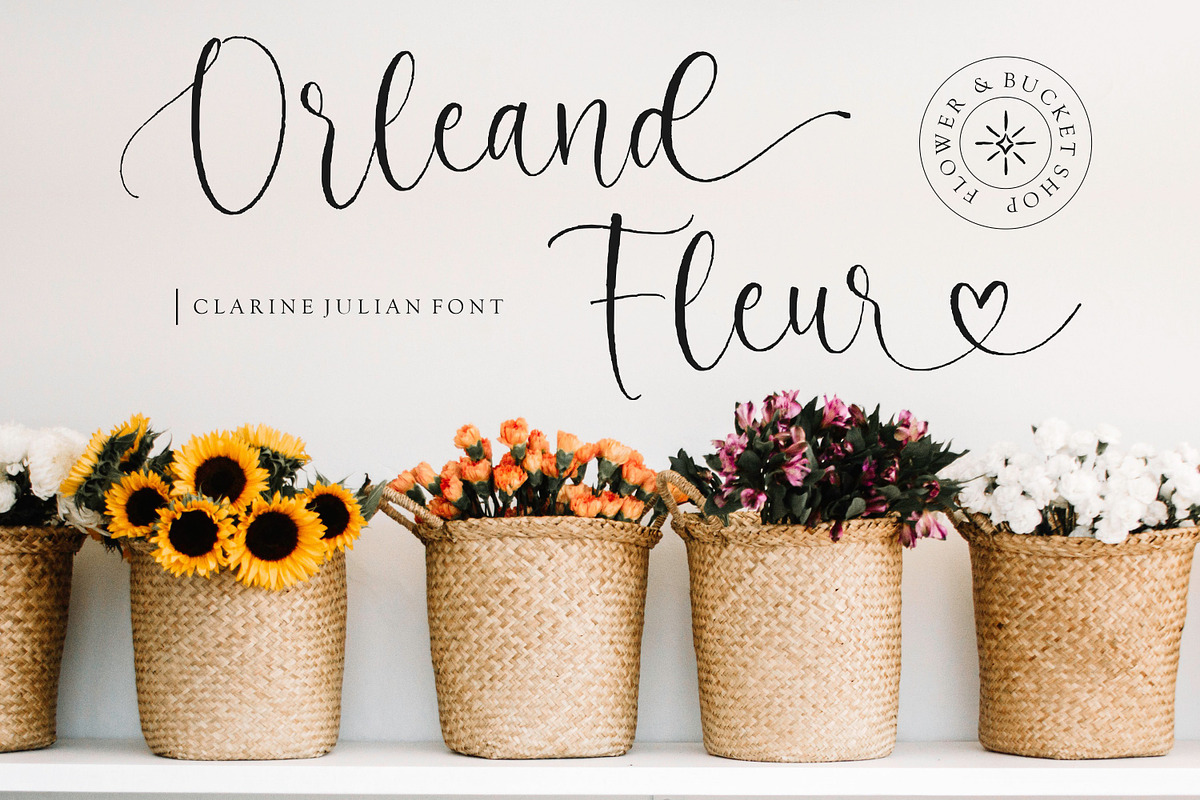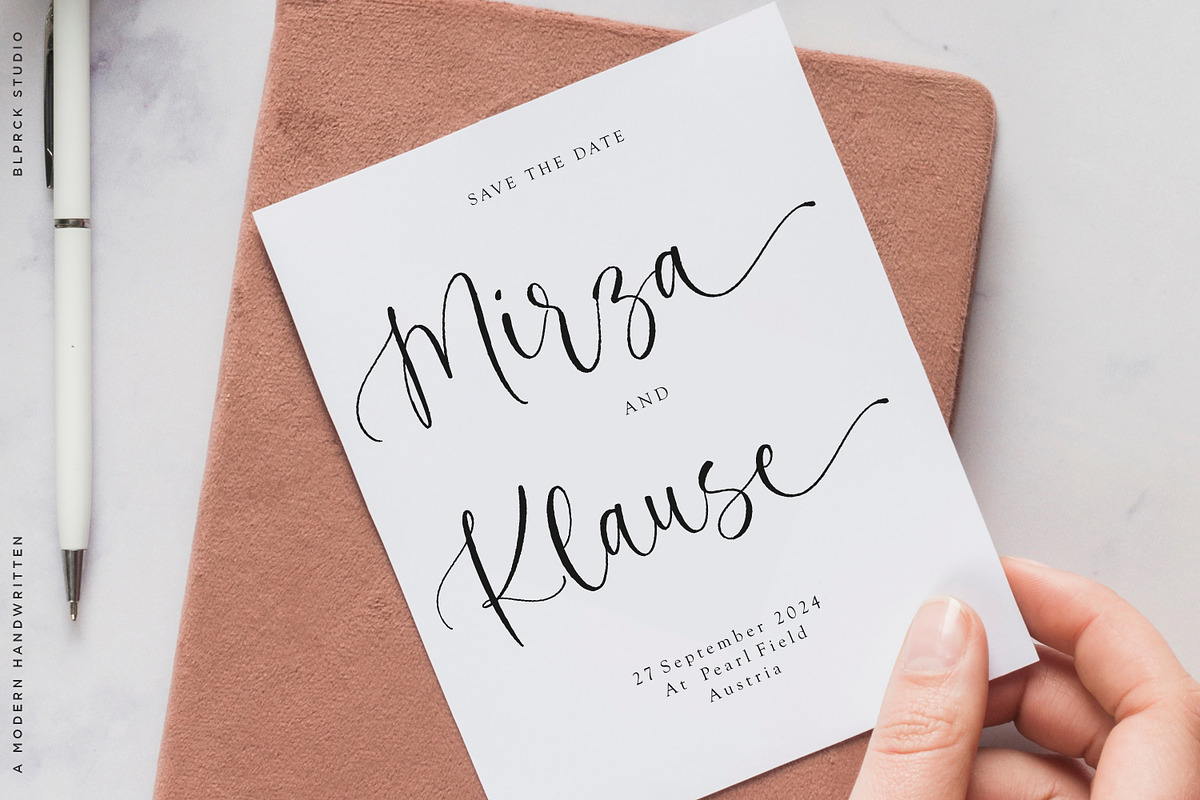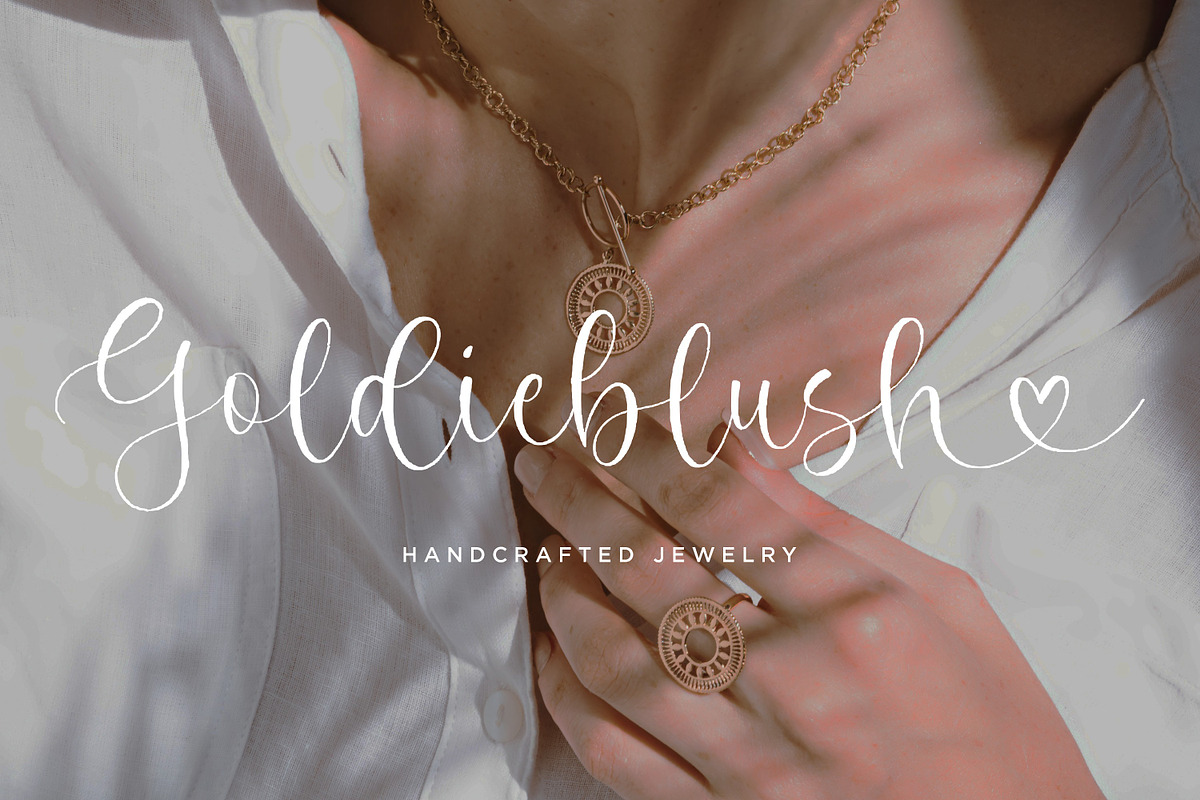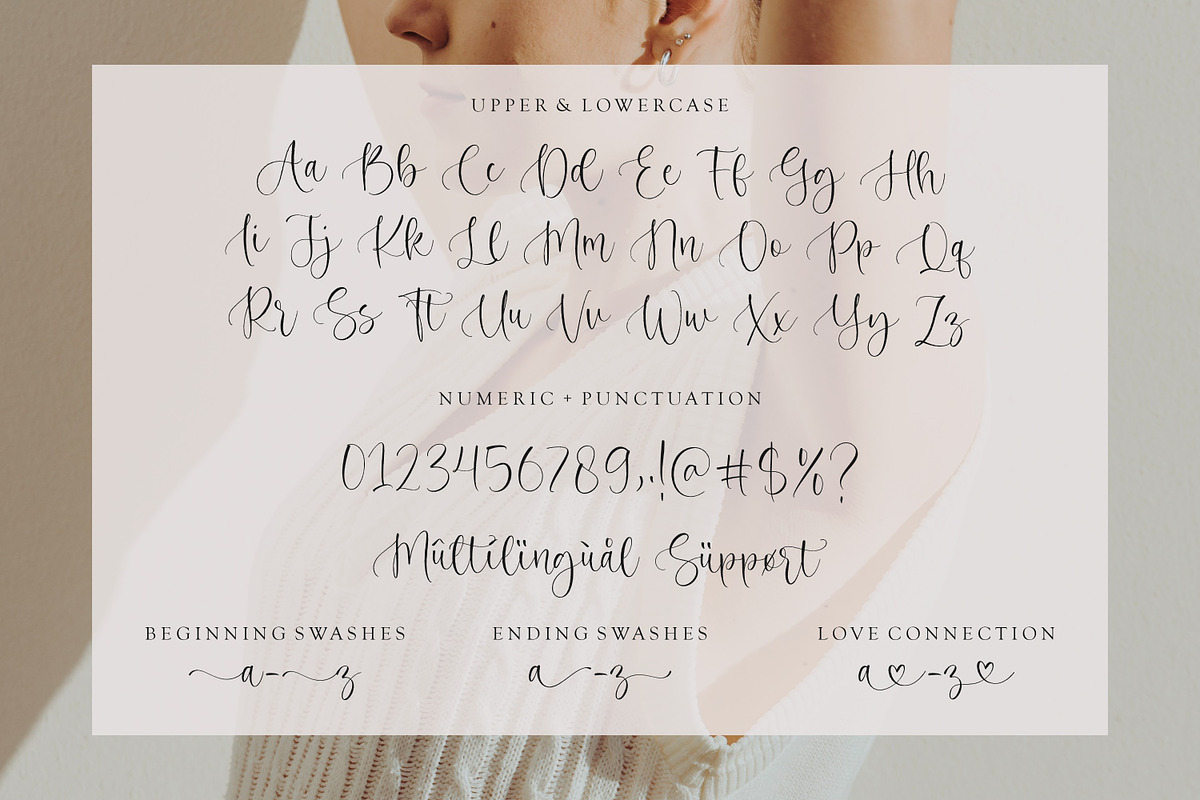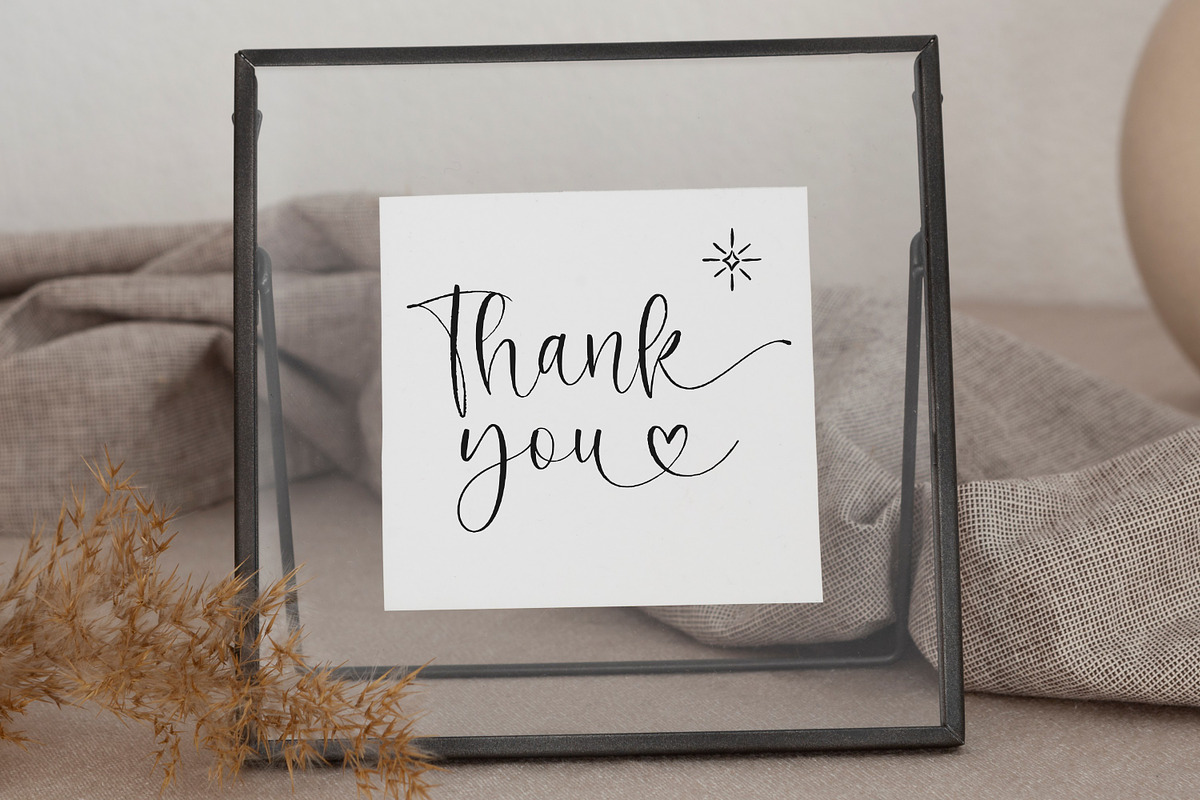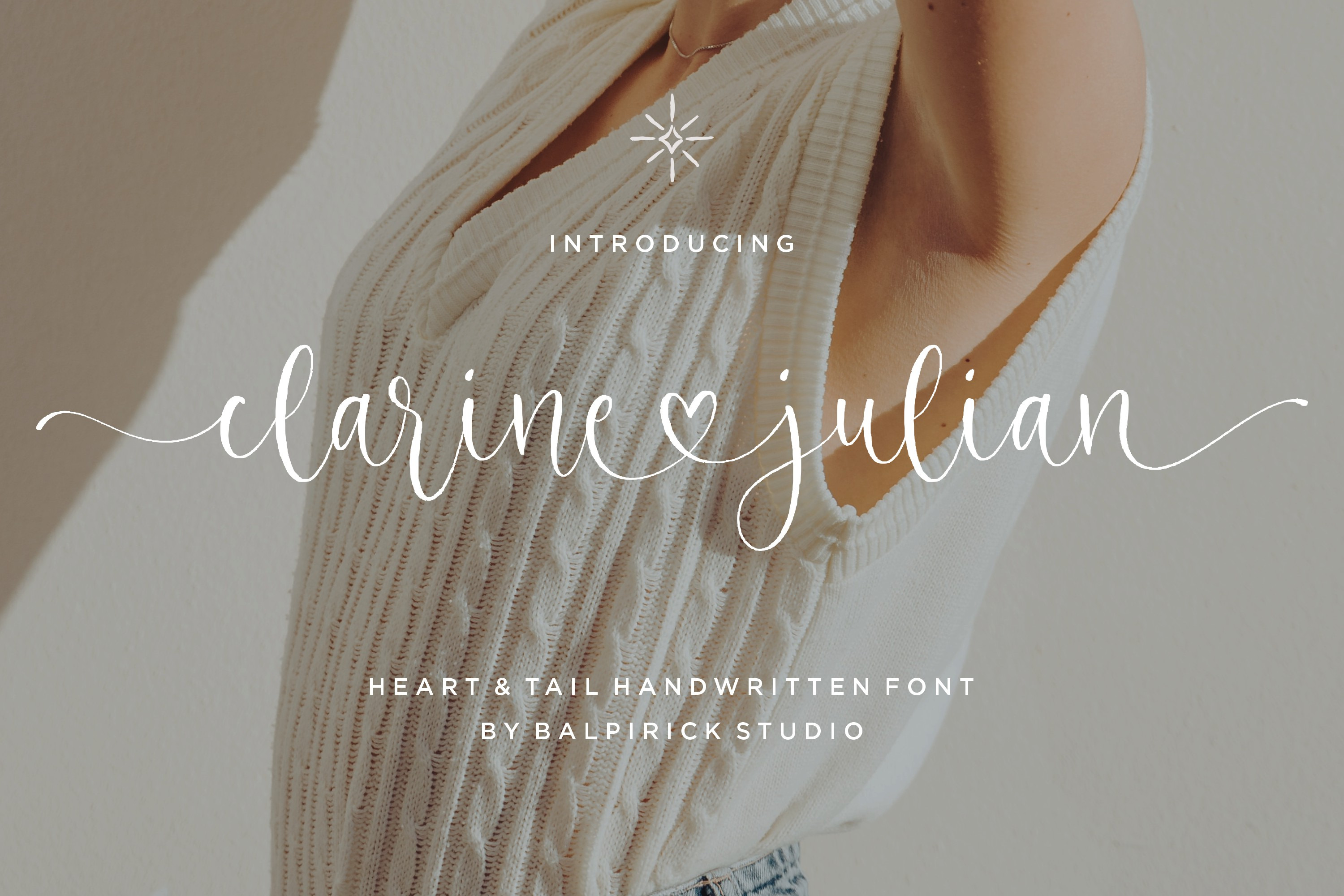
Clarine Julian - Heart and Tail Font
Introducing By Balpirick Studio!
Clarine Julian is a Heart & Tail Handwritten Font
Featuring a stunning handmade style with elegant tails and swashes. The flowing tails and swashes add an extra layer of sophistication and elegance, creating a beautiful and harmonious composition.
Whether you're designing wedding invitations, branding, and other romantic project.
- Lowercase beginning swash
- Lowercase ending swash
- Connecting heart
- Also multilingual support